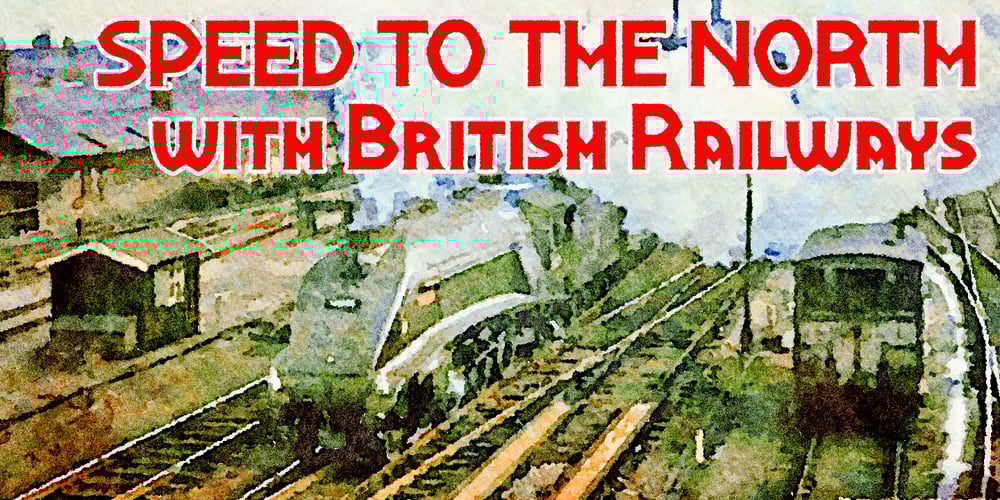
Shervington
Shervington font
Shervington Font Family was designed by Paul James Lloyd and published by Greater Albion Typefounders. Shervington contains 3 styles and family package options. Shervington is a geometric, All capitals and Small capitals typeface with a range of opentype features ideal for banners, headlines, logo design and good clear signage. The letterforms are all geometrically inspired, and are just unusual enough to stand out without obviously striving to do so. It’s a design of bold horizontal and vertical strokes complimented with ‘tiny’ serifs and owes a certain amount of inspiration to traditional sign writing techniques. The family consists of three typefaces; Regular, Shadow and Weathered.